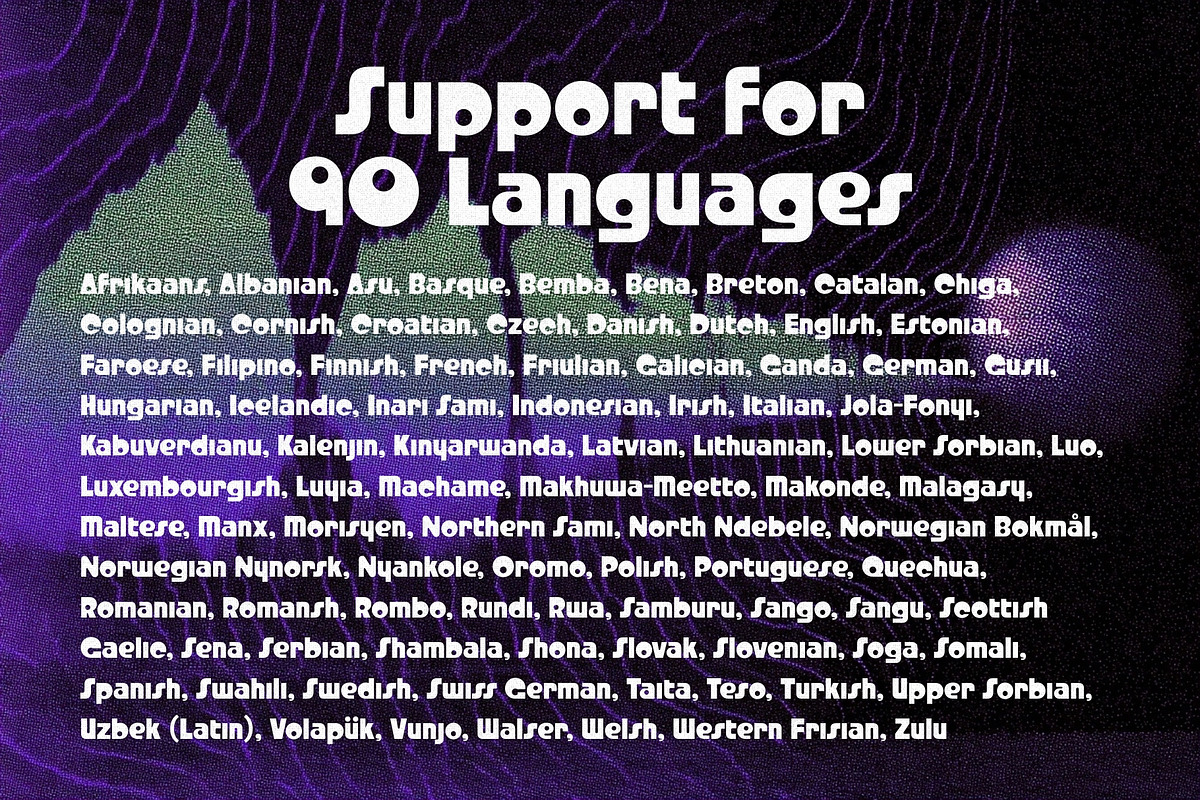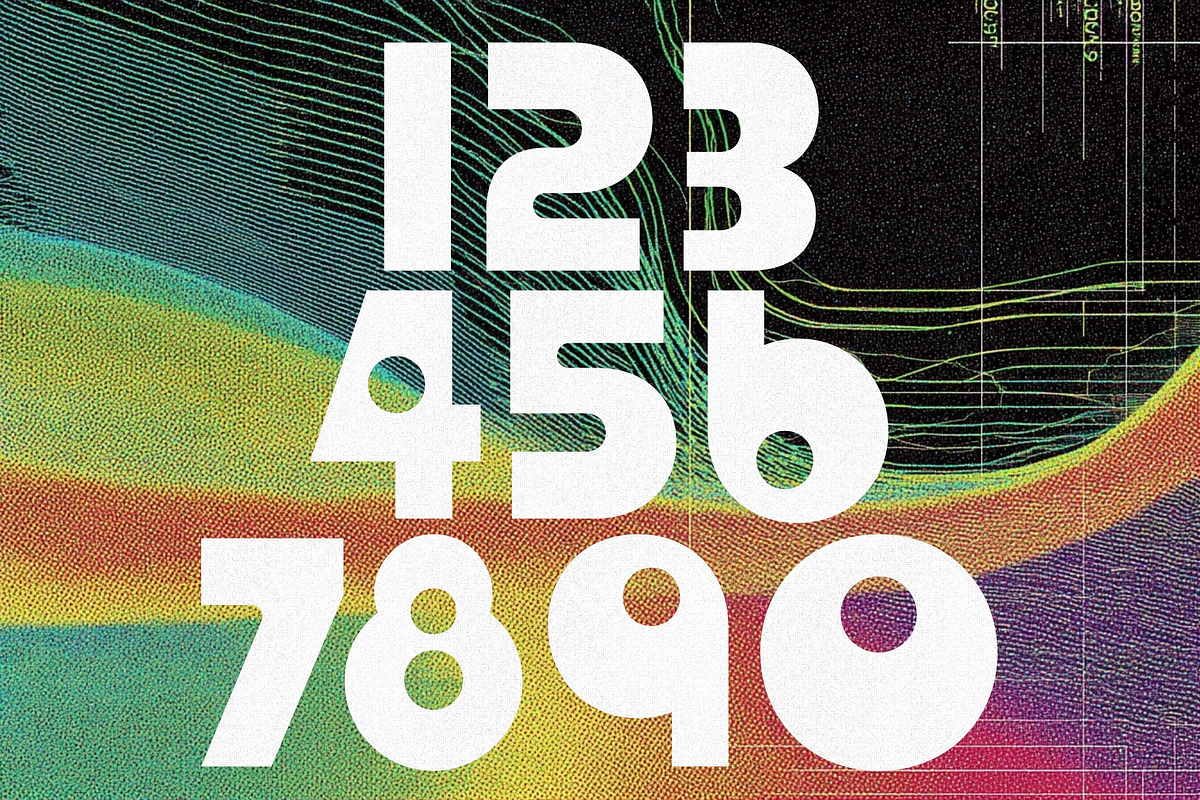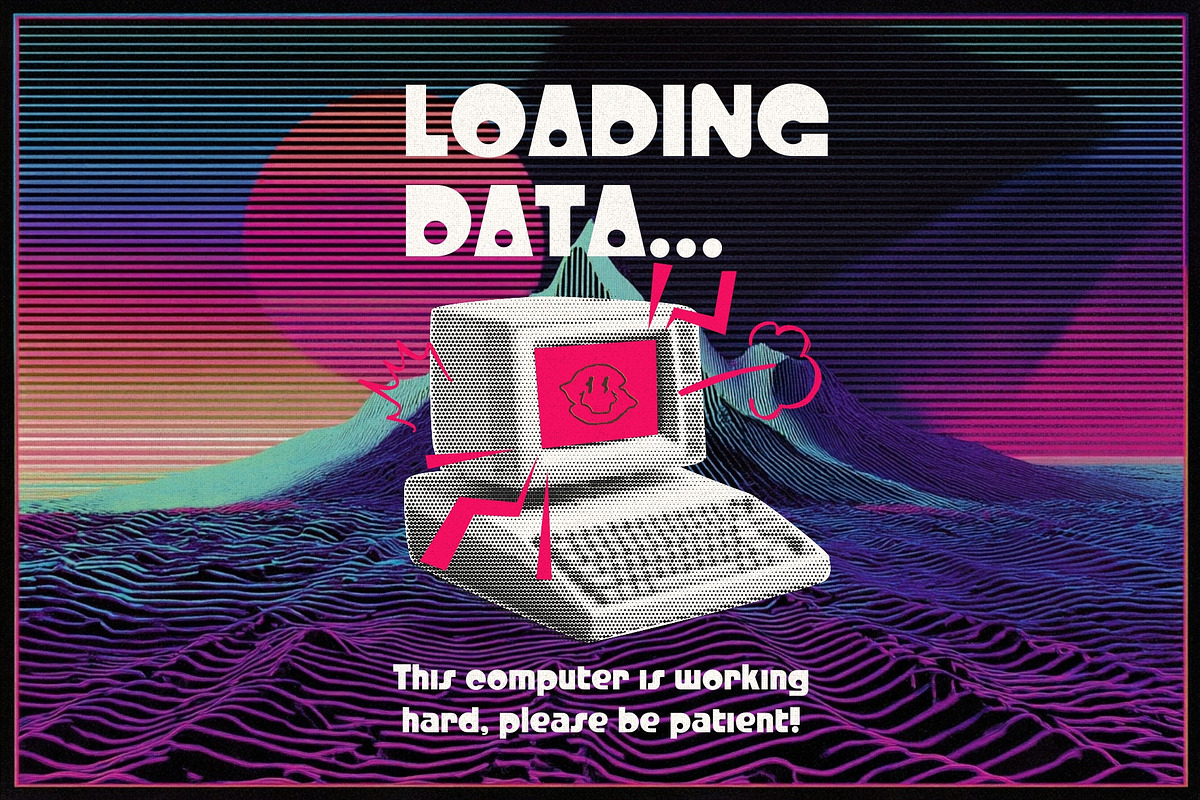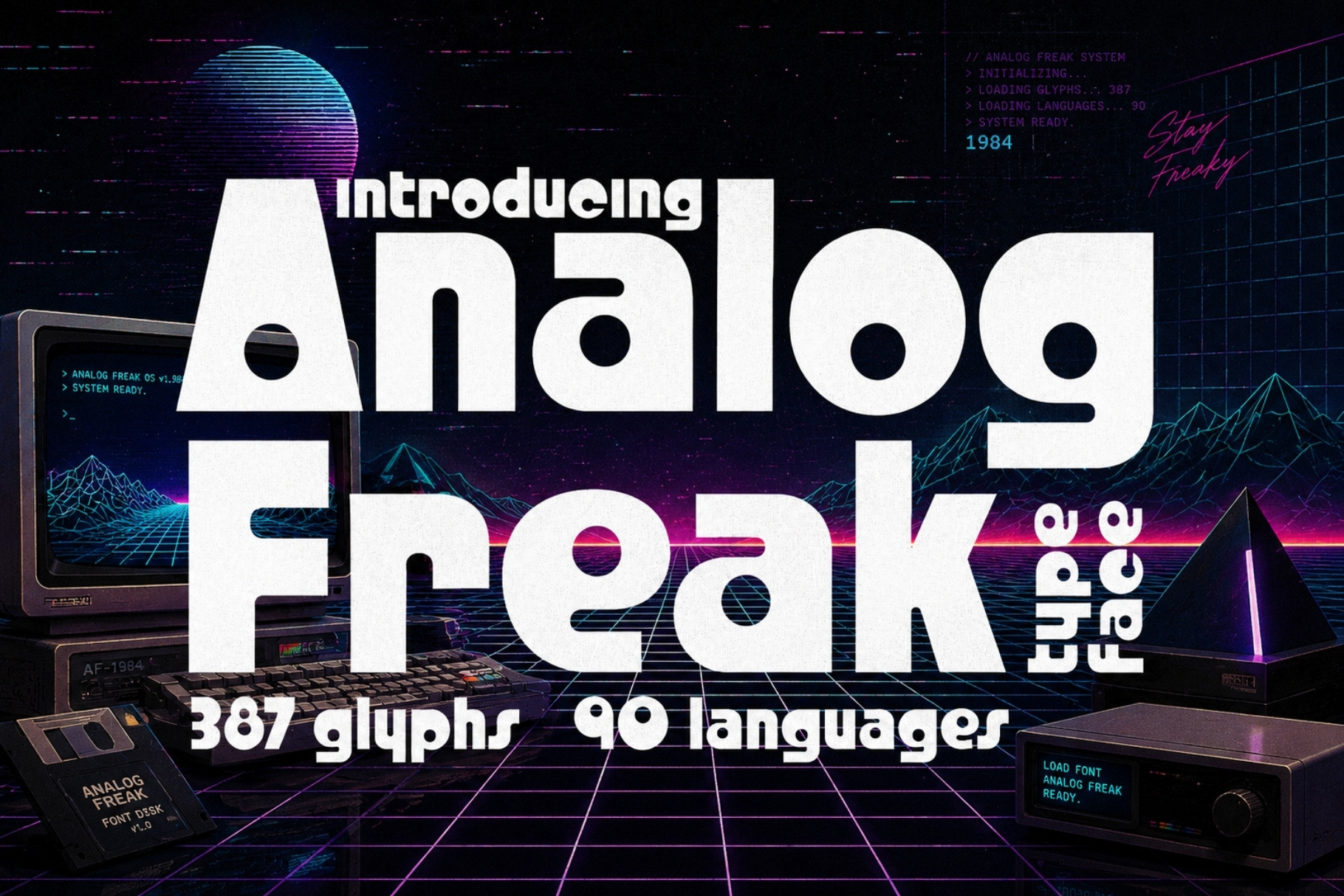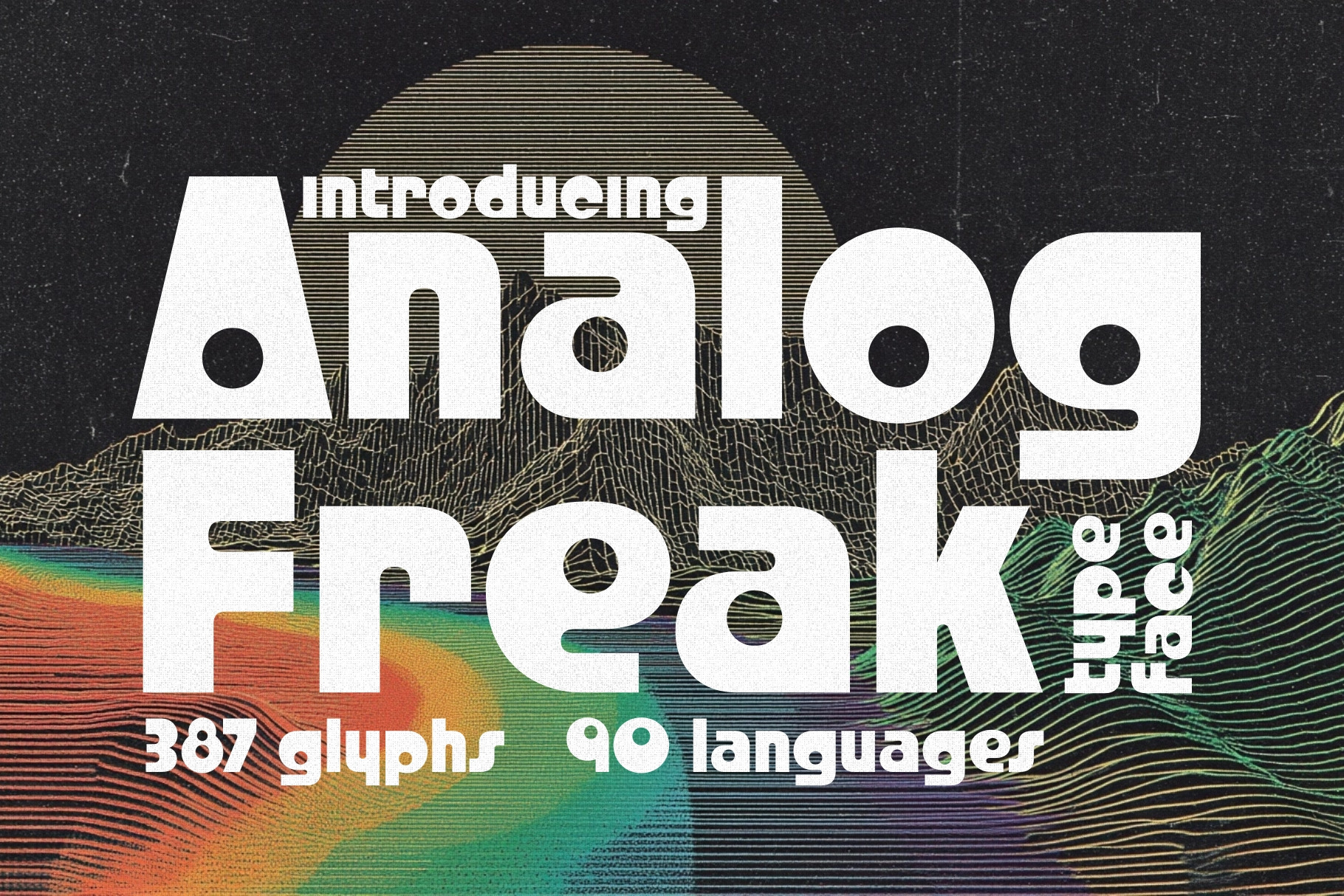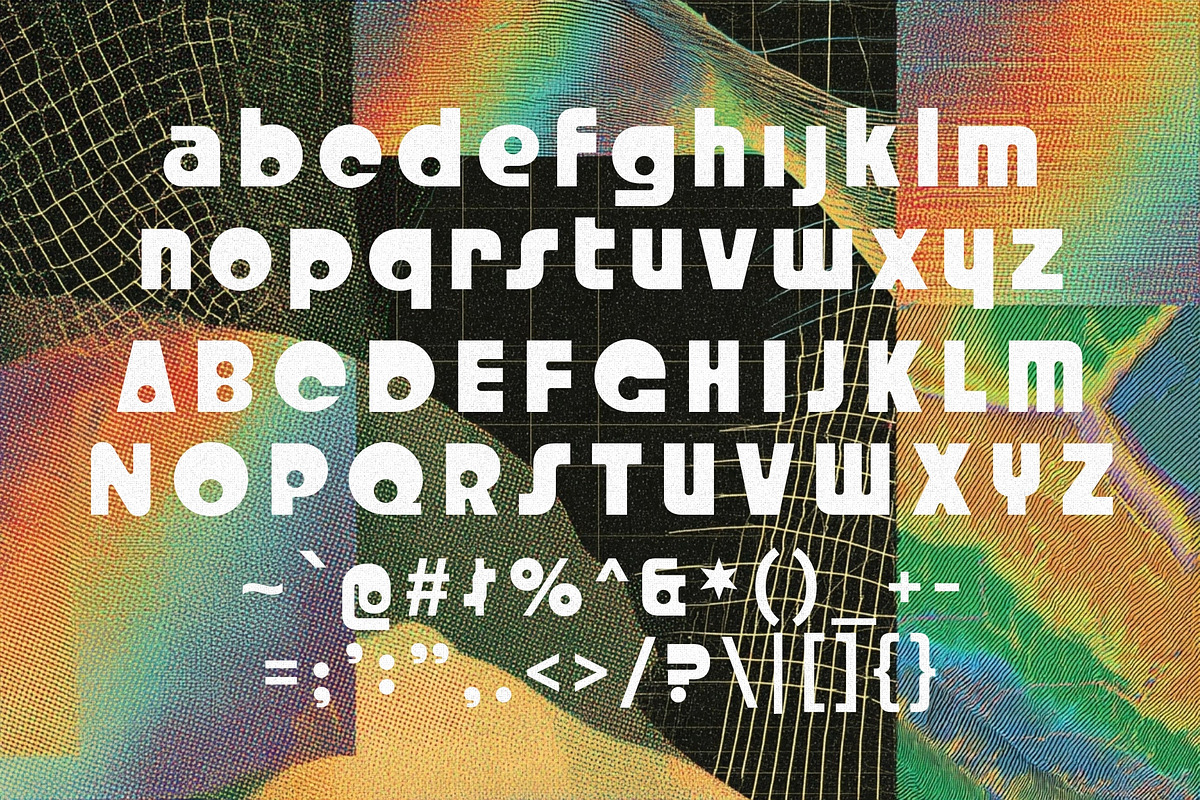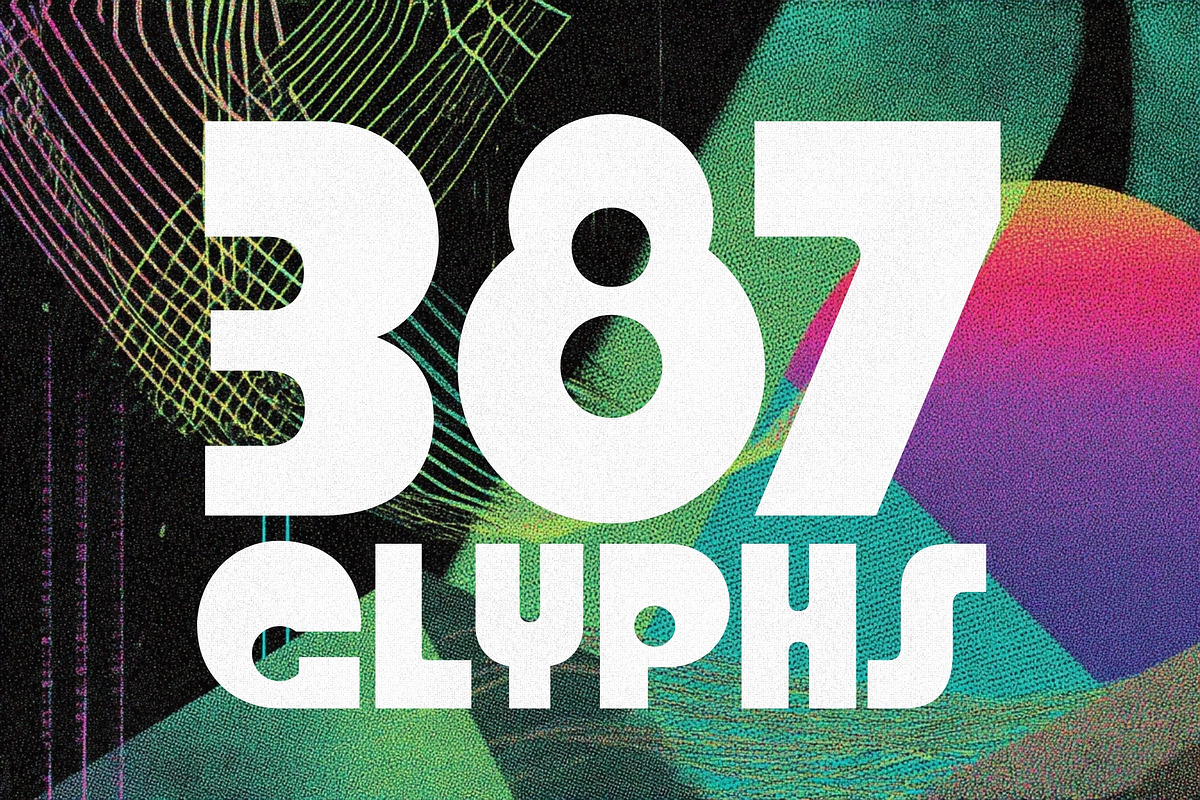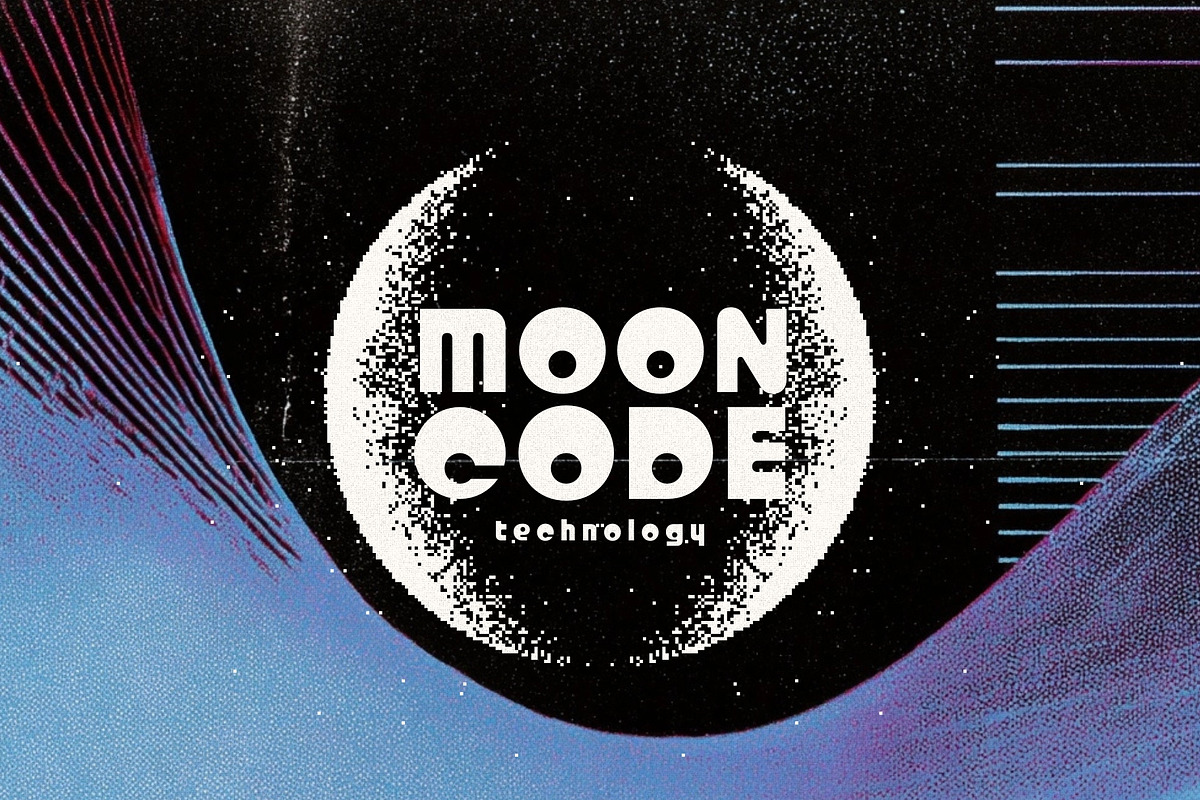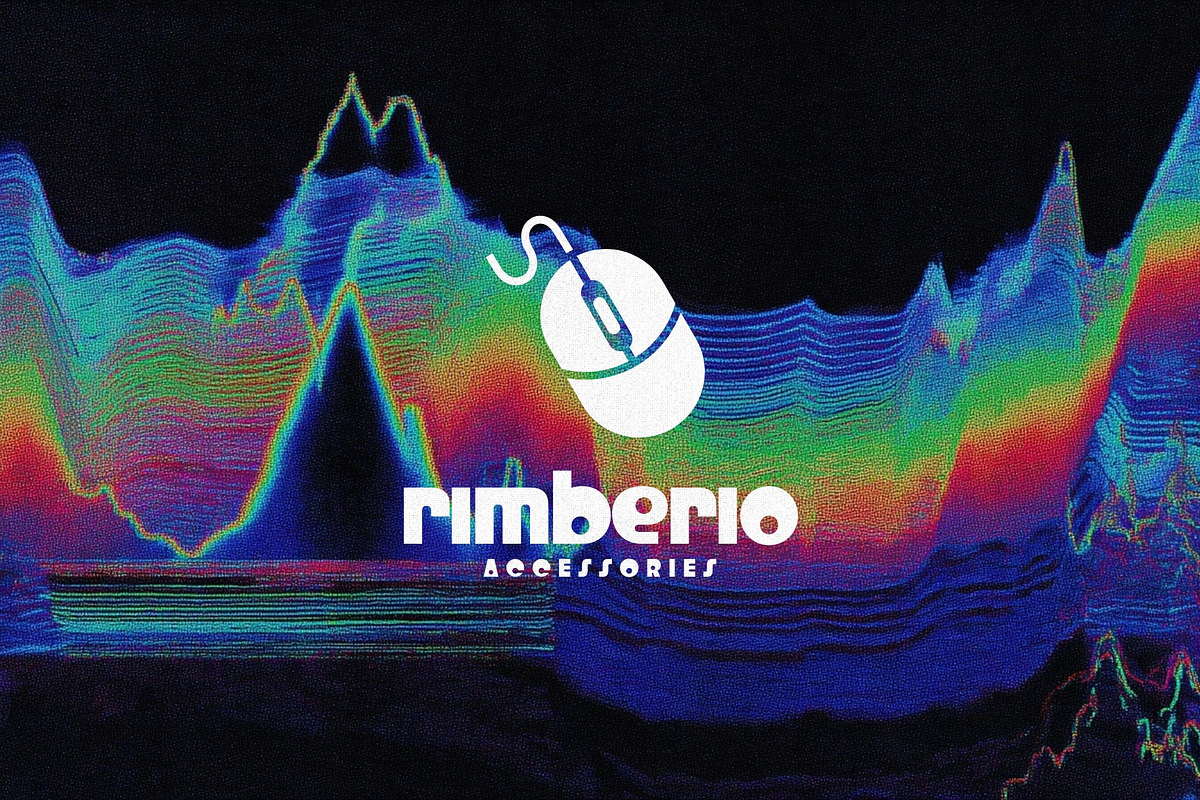
Analog Freak - 1980's Typeface
Step into the electric haze of the 1980s with Analog Freak, a retro techno font born from the strange brilliance of vintage logotype design. With its distinct, offbeat letterforms and unapologetically cool aesthetic, this typeface captures the quirky charm of early tech culture and transforms it into a full-blown typographic experience.
What started as a handful of mysterious characters has evolved into a complete alphabet, each glyph pulsing with nostalgic energy and futuristic flair. Analog Freak is the perfect blend of weird and wonderful, ideal for designers who dare to stand out.
A full set of bold, unconventional letterforms
Inspired by 1980s tech and analog design
Perfect for posters, flyers, logos, branding, album covers, and digital art
Works beautifully in sci-fi, synthwave, vaporwave, and retro-futuristic themes
A unique vibe that’s equal parts nostalgic and forward-thinking
Plug in. Tune out. Get freaky. Analog Freak is ready to glitch your grid, n style.